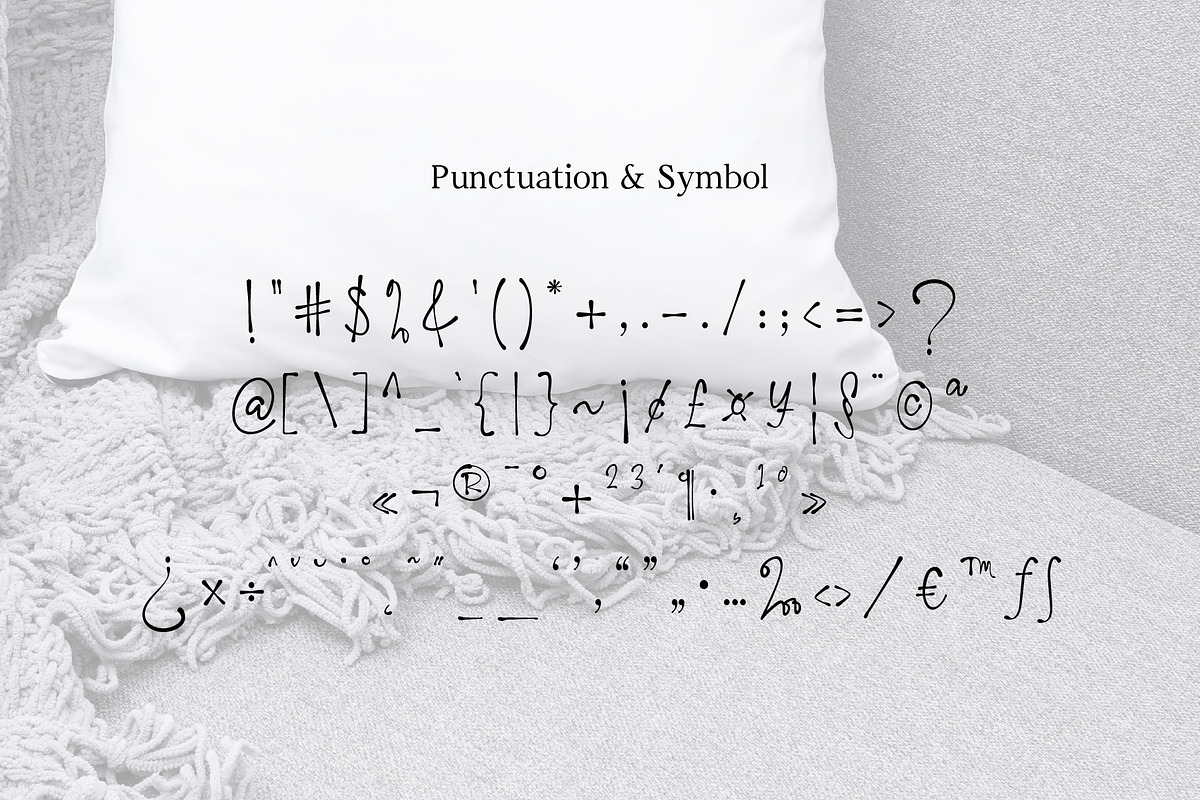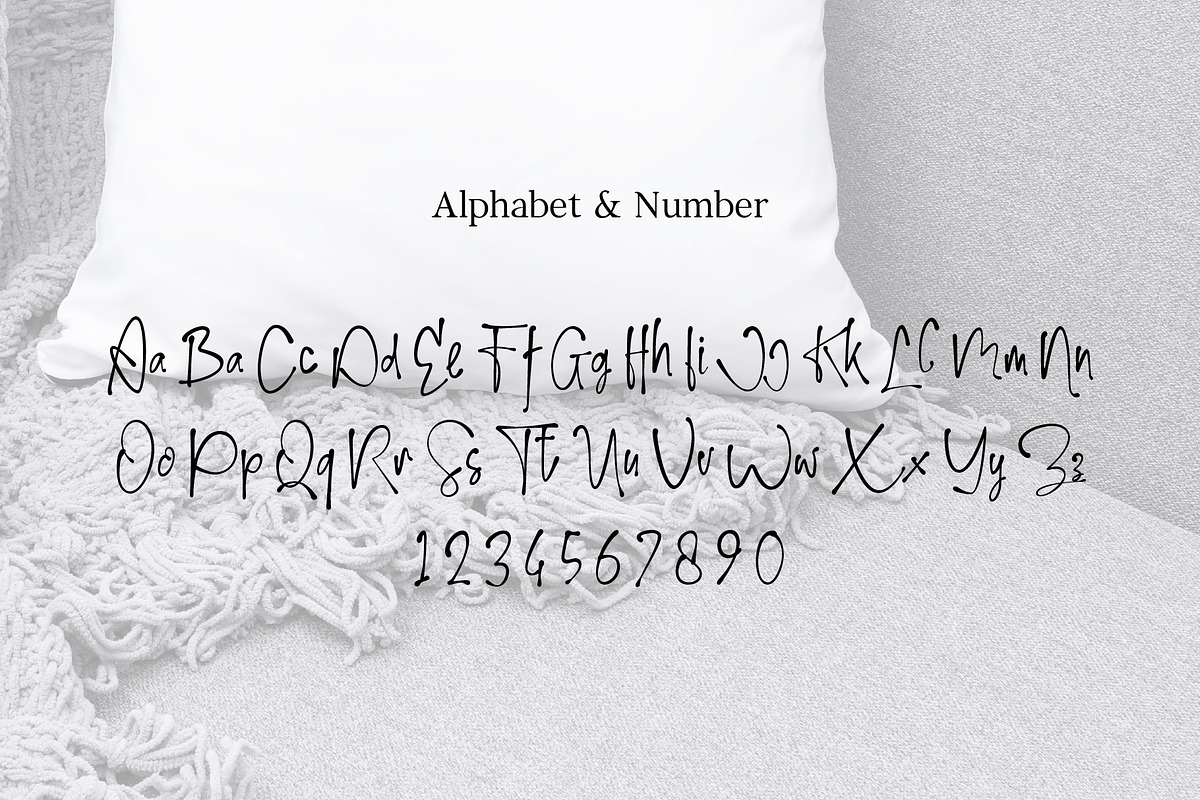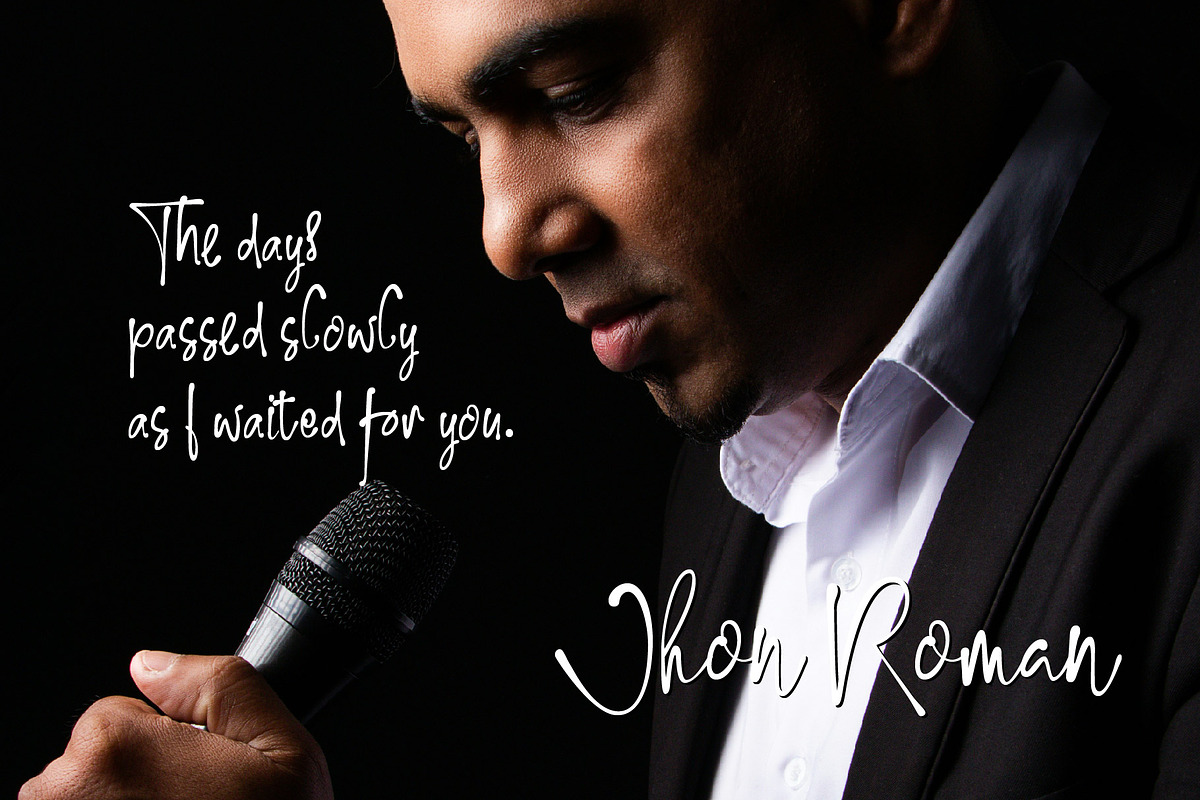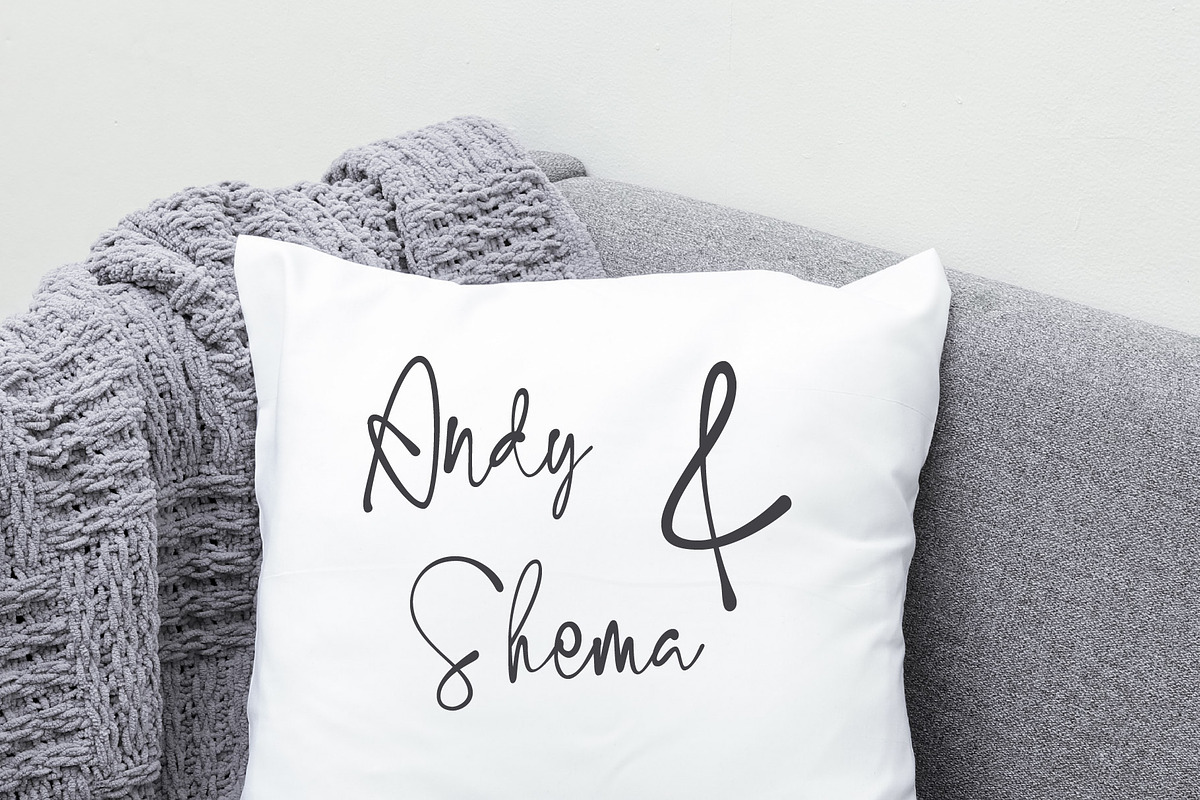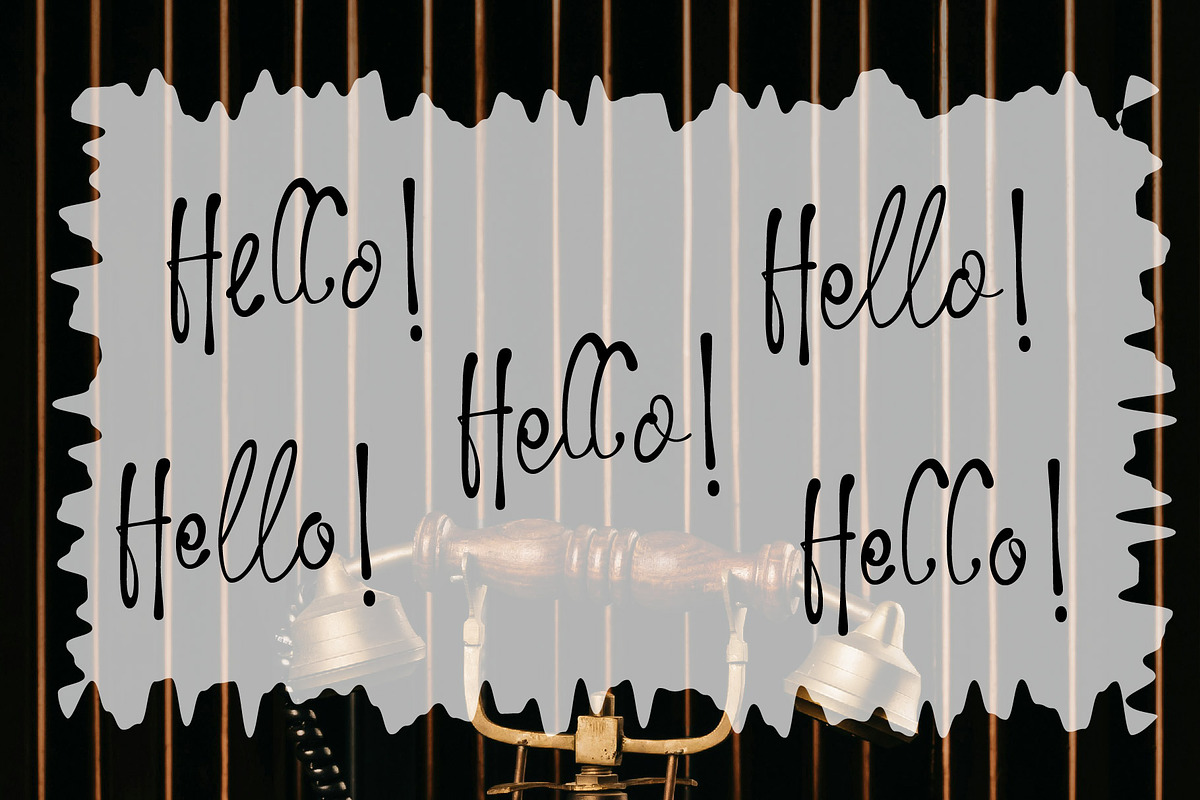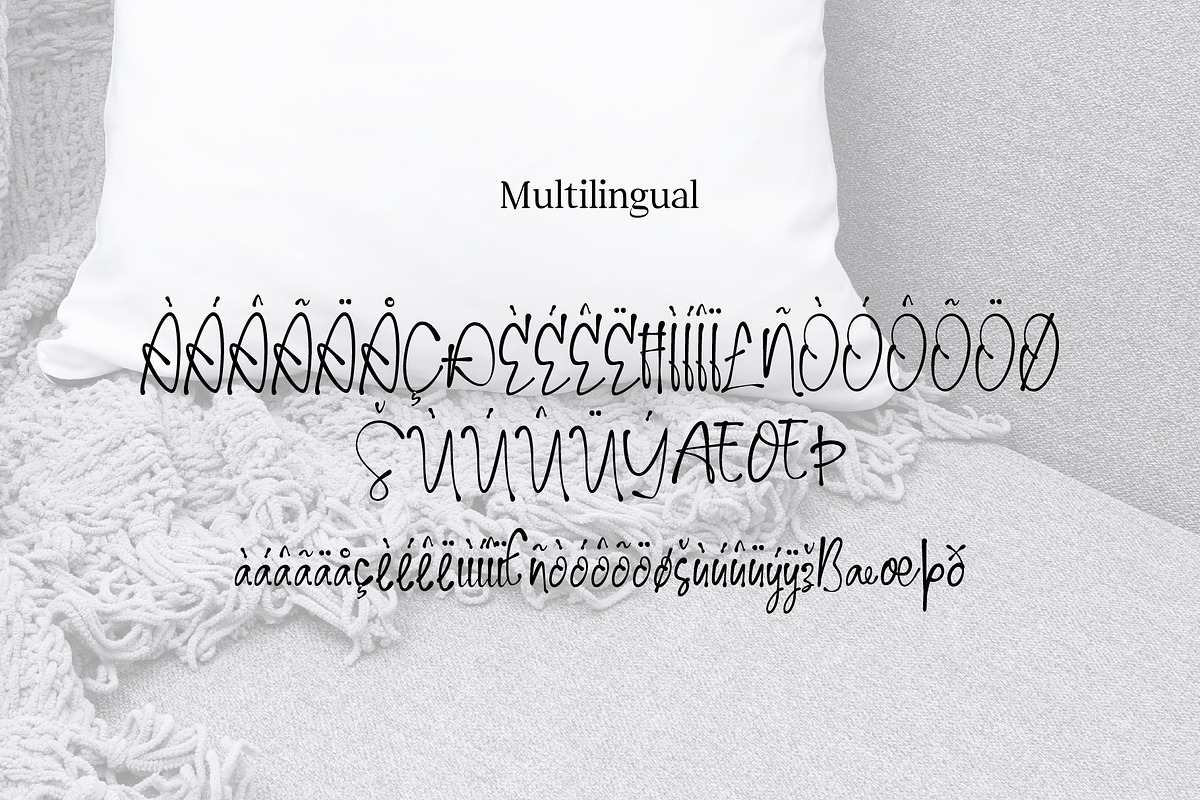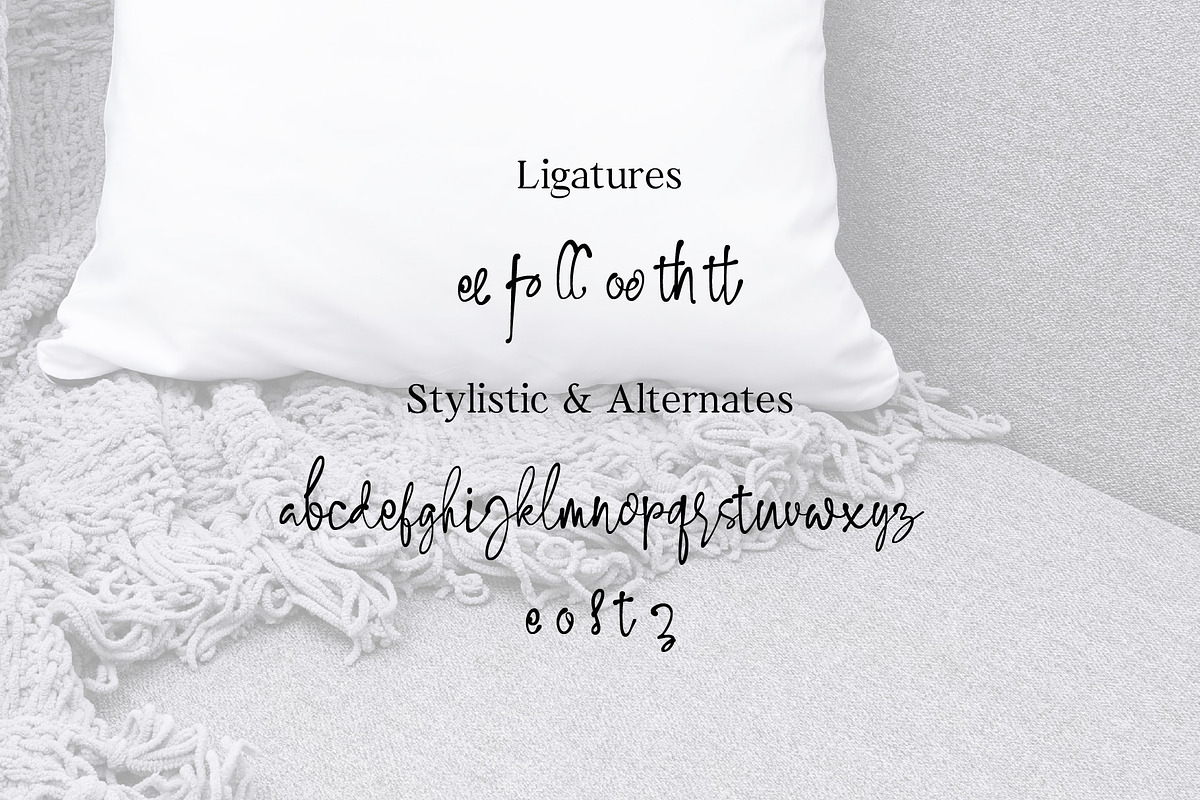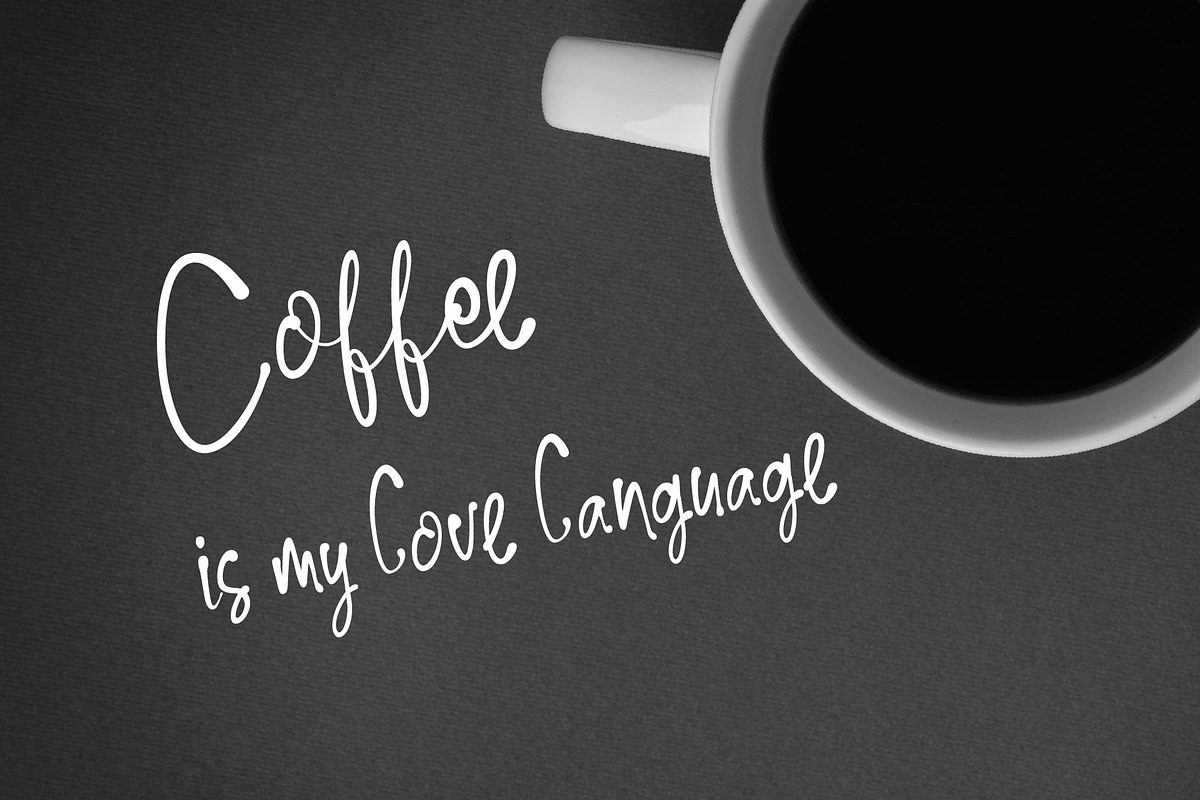
Fancy Gel - Versatile Handwritten
Fancy Gel is a versatile handwritten font. With block and cursive style features, it is perfect for titles and quotes, legible and attractive for labels, luxurious for brands, and great for signatures.
Feature:
- Stylistic Set for all lowercase letters.
- Ligature for the letters "ee fo ll oo th tt".
- Alternates for the letters " e o s t z ".
- Multilingual support.